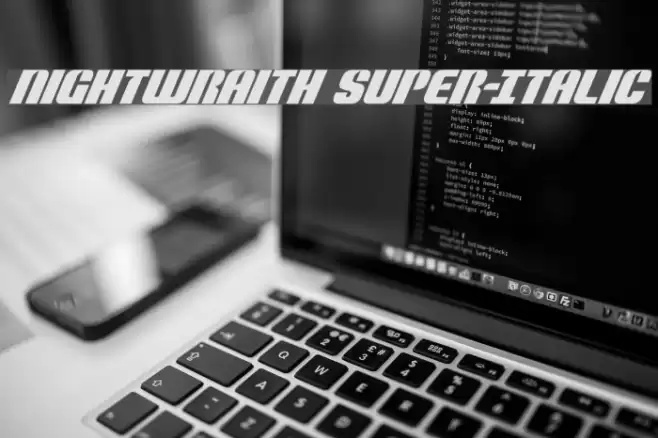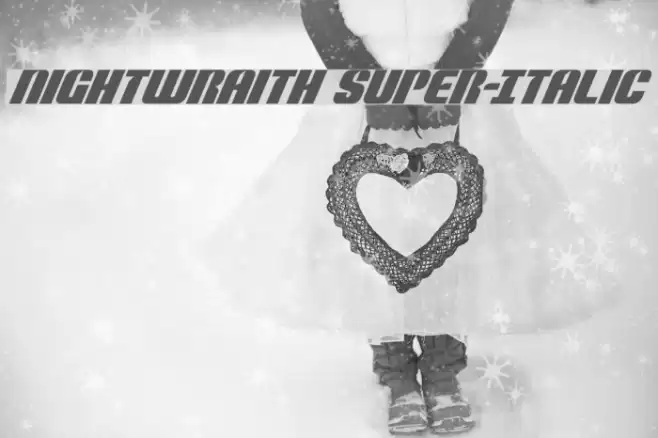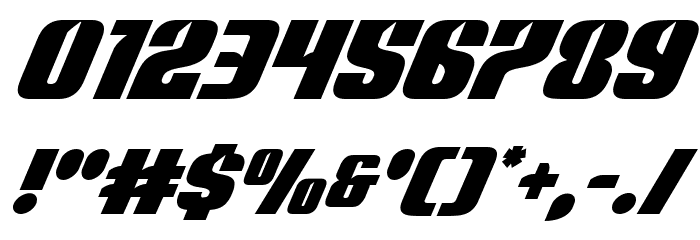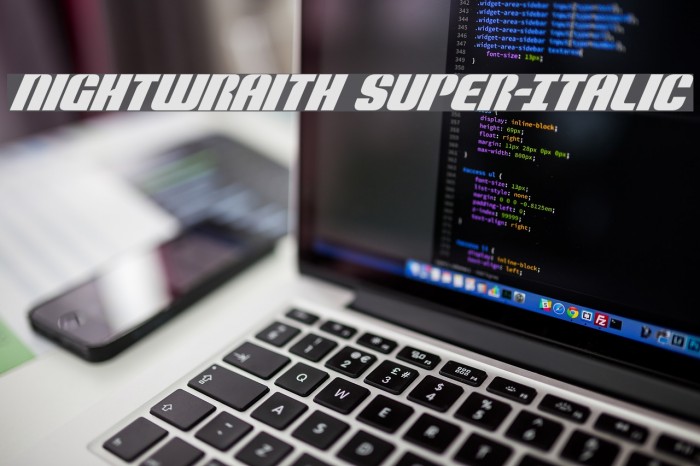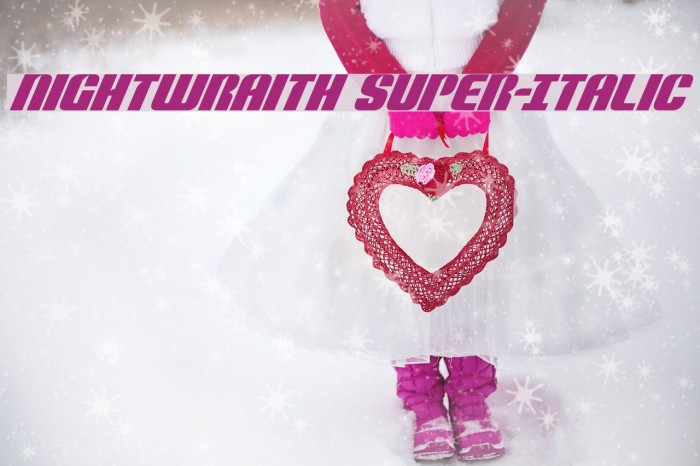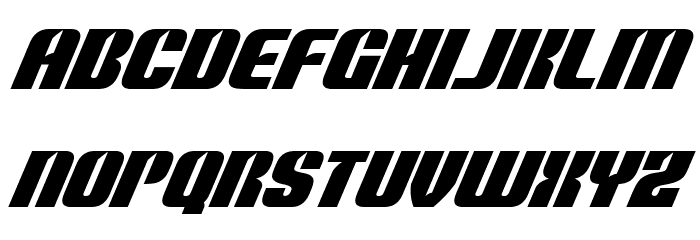
Nightwraith Super-Italic Font
Nightwraith Super-Italic Description
This font features a bold, italicized style with a strong presence. The characters are slanted, giving a dynamic and energetic feel. The strokes are thick and consistent, providing a sense of stability and strength. The overall design is modern and sleek, with a slightly condensed width that enhances its boldness. The uppercase and lowercase letters maintain a uniform style, while the numerals and special characters are designed to match the bold, italicized aesthetic. This font is ideal for projects that require a strong, impactful visual statement.
Bold, italicized font with a modern and dynamic style from Uncategorized fonts.
- Proposed Projects: Ideal for branding, advertising, posters, and headlines that require a strong visual impact.